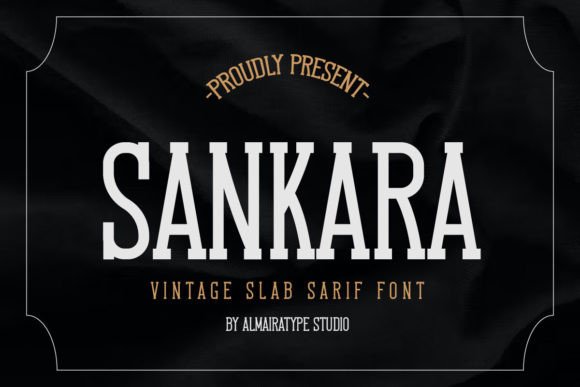
Introducing Sankara Font, the epitome of sophistication and versatility in the world of typography. Crafted by the talented Almairatype Studio, this modern and sleek slab serif font is a true masterpiece.
With its clean and well-defined lines, Sankara exudes a timeless yet contemporary appeal that is bound to captivate your audience. Its sturdy serifs add a touch of elegance and make a lasting impression on any design. Whether you are working on branding, editorial design, or advertising, Sankara is the perfect choice to elevate your project to new heights.
What sets Sankara apart is its ability to strike a harmonious balance between classic elegance and a modern aesthetic. Its minimalist and sophisticated design makes it a versatile font that can effortlessly adapt to any creative vision. Whether you aim for a vintage-inspired look or a cutting-edge design, Sankara has got you covered.
But Sankara is more than just a visually stunning font; it is a tool that evokes emotions and tells stories. Its carefully crafted curves and meticulous attention to detail create a unique reading experience, making your message stand out and resonate with your audience.
Imagine the impact your content will have when presented in Sankara Font. Your words will come alive, leaving a lasting impression on your readers. From headlines to body text, Sankara's legibility ensures that your message is conveyed with clarity and style.
Sankara Font is not just for designers; it is for those who appreciate the power of words and the art of storytelling. It is for those who strive to make an impact and leave a mark in the world. With Sankara, you become a master storyteller, effortlessly capturing attention and engaging your audience.
In a world where first impressions matter, make yours unforgettable with Sankara Font. Turn heads, inspire action, and create memorable experiences with this exceptional slab serif font. Elevate your designs to new heights and leave a lasting impression on your audience. Choose Sankara Font and embrace the power of captivating typography.